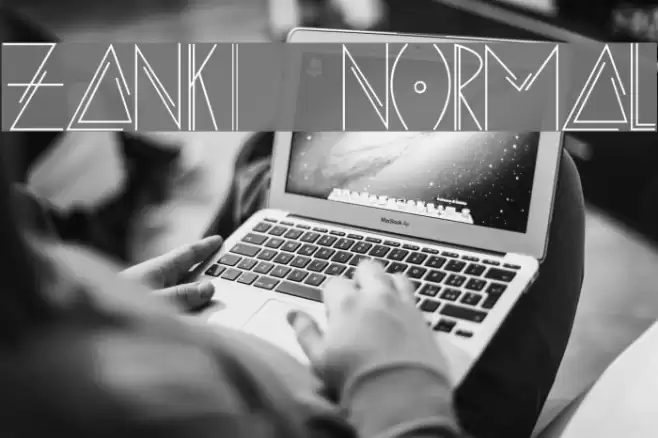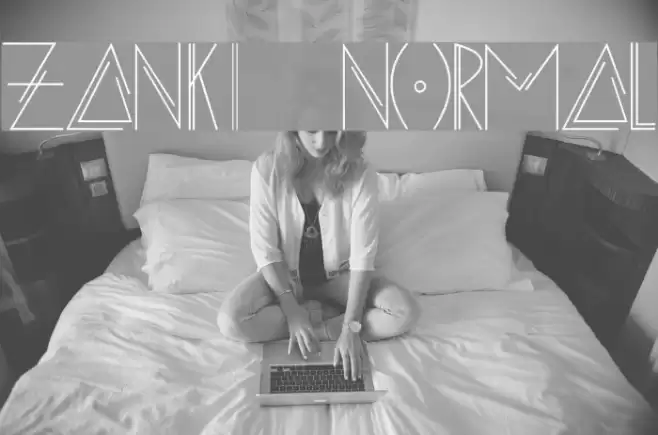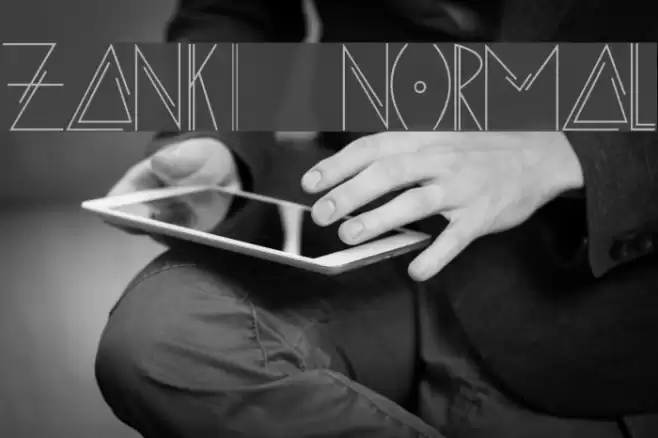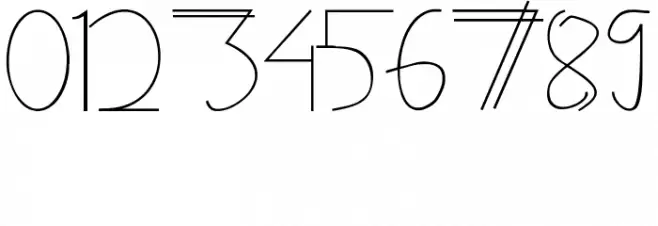
ZANKI Normal Font
ZANKI Normal Description
This font features a unique and artistic design with geometric influences. The uppercase letters are characterized by sharp angles and thin lines, creating a modern and futuristic appearance. The lowercase letters maintain a similar style, with consistent line thickness and angular forms. Numbers are designed with a minimalist approach, emphasizing clean lines and symmetry. Special characters are integrated seamlessly, maintaining the overall aesthetic. The font's distinct style makes it suitable for creative and contemporary projects, offering a visually striking appearance.
A geometric and modern font with thin lines and angular shapes from Uncategorized fonts.
- Proposed Projects: Ideal for branding, logos, posters, and modern art projects.
- Use Case: Logos, Posters, Branding